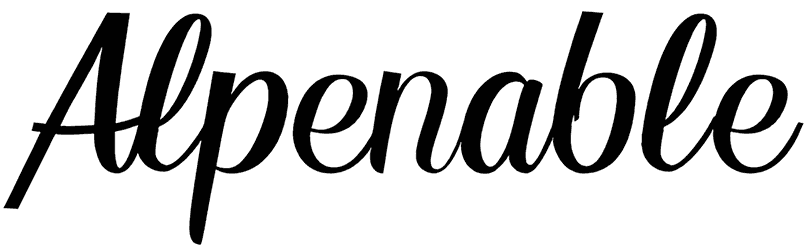
Alpenable Font
While you are stranded in the middle of an editorial project and lack a suitable script font, suddenly a magical artwork, the same as the Alpenable, comes from nowhere and lets you give a fresh breath to your content.
Aside from the lack of numbers, due to its accurate kerning and elongated letters, it can boost the efficiency of your blog posts, labels, branding projects, or movie posters. Also, this calligraphy font carries a sense of tenderness, whimsicalness, or vivacity.